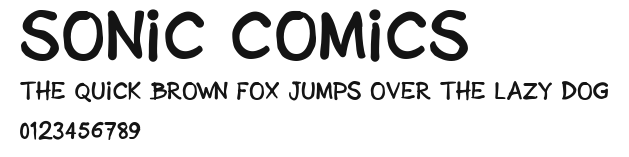
Sonic Comics Preview
• Font Name: Sonic Comics
• Font ID: DanielLealWerneck: Sonic Comics: 2009
• Full Font Name: Sonic Comics
• Designer: Daniel Leal Werneck
• Manufacturer: Daniel Leal Werneck
About Sonic Comics.ttf
Sonic Comics.ttf is a modern, elegant sans-serif font designed for ultimate readability and visual harmony. Perfect for branding, headlines, web design, and print materials.